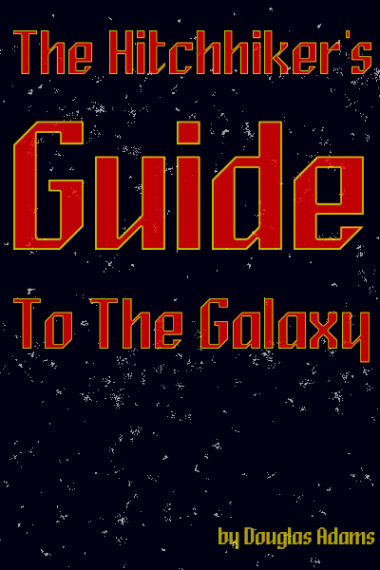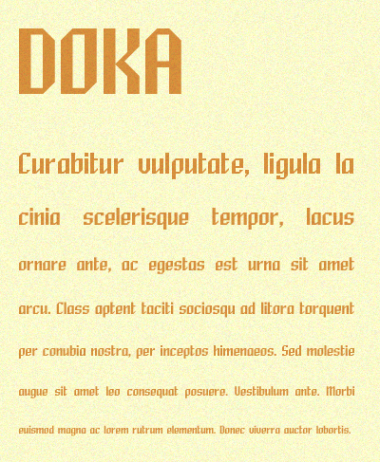
• Just an old font I played with over the months. I really love that it is fairly readable in small sizes and beautiful in big as well. I'm looking forward to your critiques and if anybody has tips and tricks to improve the font, I'd love to hear them.
This is really nice and clean. I think the diagonals on X, Y, x can be improved but this is mostly well done! :D
Hey, thanks for the comment. I did make some improvements to the X and Y, but it seems the font renderer on this page just as some problems displaying the letters correctly.
If you download the font and let it be displayed by your native renderer, they are as clean as they should be.
nice work!
s look a bit small... but it work anyway
This is my suggestion on X and Y, which can also be applied to x. It would be more in tune with the distinction between thin and thick diagonal strokes as seen on the K, and would fit in with the other letters better.
Thanks for the tips guys, I further improved some things, but I have a question:
I did make the fi & fl ligatures, but when are they applied? In the preview above, they aren't shown if you type fi or fl.
Love it! Great work. 10/10